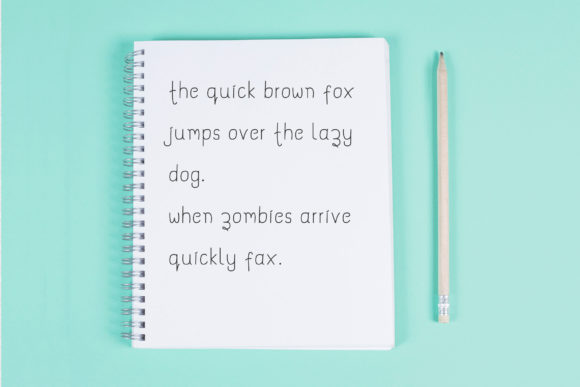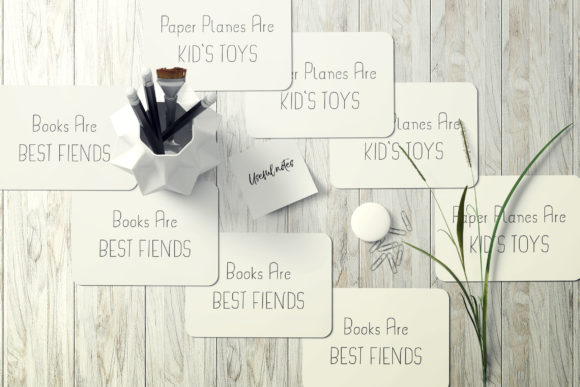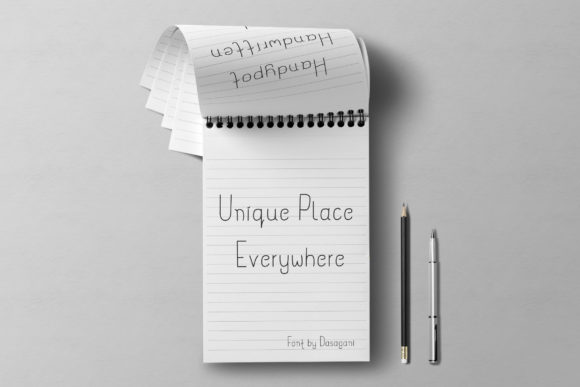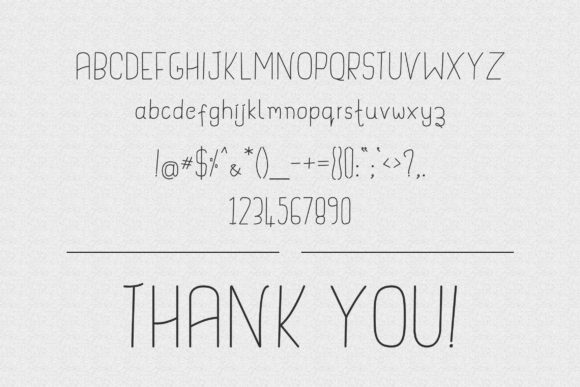
Introducing Handypot Font: The Perfect Choice for Playful and Creative Projects
Are you a designer, crafter, or DIY enthusiast looking for a font that can add a touch of playfulness and simplicity to your projects? Look no further than Handypot Font! This monoline font is designed to be clean, readable, and versatile, making it perfect for a wide range of applications, from kids’ games and apps to casual writings, books, and invitations.
What Makes Handypot Font So Special?
Handypot Font is a unique and charming font that boasts a range of characteristics that set it apart from other fonts. Here are just a few of the features that make it so special:
- Playful and Simple: Handypot Font has a playful and simple design that is sure to capture the attention of your audience. Its clean lines and minimalist aesthetic make it perfect for projects that require a lighthearted and approachable feel.
- Monoline Design: The monoline design of Handypot Font gives it a sleek and modern look that is perfect for a wide range of applications. The font’s consistent line width creates a sense of harmony and balance, making it easy to read and visually appealing.
- Great Readability: One of the standout features of Handypot Font is its exceptional readability. The font’s clean letters and simple design make it easy to read, even at small sizes, making it perfect for use in body text, headings, and titles.
Uses for Handypot Font
Handypot Font is an incredibly versatile font that can be used in a wide range of projects, including:
- Kids’ Games and Apps: The playful and simple design of Handypot Font makes it perfect for use in kids’ games and apps. Its clean lines and bright, cheerful feel are sure to delight kids and parents alike.
- Casual Writings and Books: Handypot Font is also a great choice for casual writings and books. Its monoline design and clean letters make it easy to read, and its playful feel adds a touch of personality to any text.
- Invitations and Stationery: Whether you’re designing invitations, greeting cards, or stationery, Handypot Font is a great choice. Its simple and elegant design makes it perfect for formal and informal occasions alike.
- DIY Projects and Crafts: If you’re a crafter or DIY enthusiast, Handypot Font is a great addition to your design toolkit. Use it to add a personal touch to your projects, from handmade cards to customized home decor.
Why Designers and Crafters Love Handypot Font
So why do designers and crafters love Handypot Font? Here are just a few reasons:
- Easy to Use: Handypot Font is incredibly easy to use, even for those with limited design experience. Its simple and intuitive design makes it easy to get started, and its versatility means you can use it in a wide range of projects.
- High-Quality Design: Handypot Font is designed to high standards, with clean lines, consistent spacing, and exceptional readability. This makes it perfect for use in professional and personal projects alike.
- Unique and Playful Feel: Handypot Font has a unique and playful feel that sets it apart from other fonts. Its monoline design and simple aesthetic make it perfect for adding a touch of personality to any project.
In conclusion, Handypot Font is a versatile and charming font that is perfect for designers, crafters, and DIY enthusiasts. Its playful and simple design, monoline aesthetic, and exceptional readability make it a great choice for a wide range of projects, from kids’ games and apps to casual writings, books, and invitations. Whether you’re looking for a font to add a touch of personality to your designs or simply want a reliable and easy-to-use font, Handypot Font is an excellent choice.